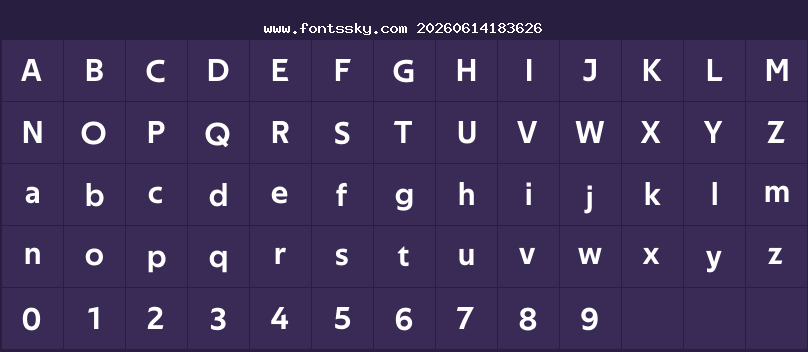
Techna Sans Preview
• Font Name: Techna Sans
• Designer: Carl Enlund
About Techna Sans.otf
Techna Sans.otf is a modern, elegant sans-serif font designed for ultimate readability and visual harmony. Perfect for branding, headlines, web design, and print materials.